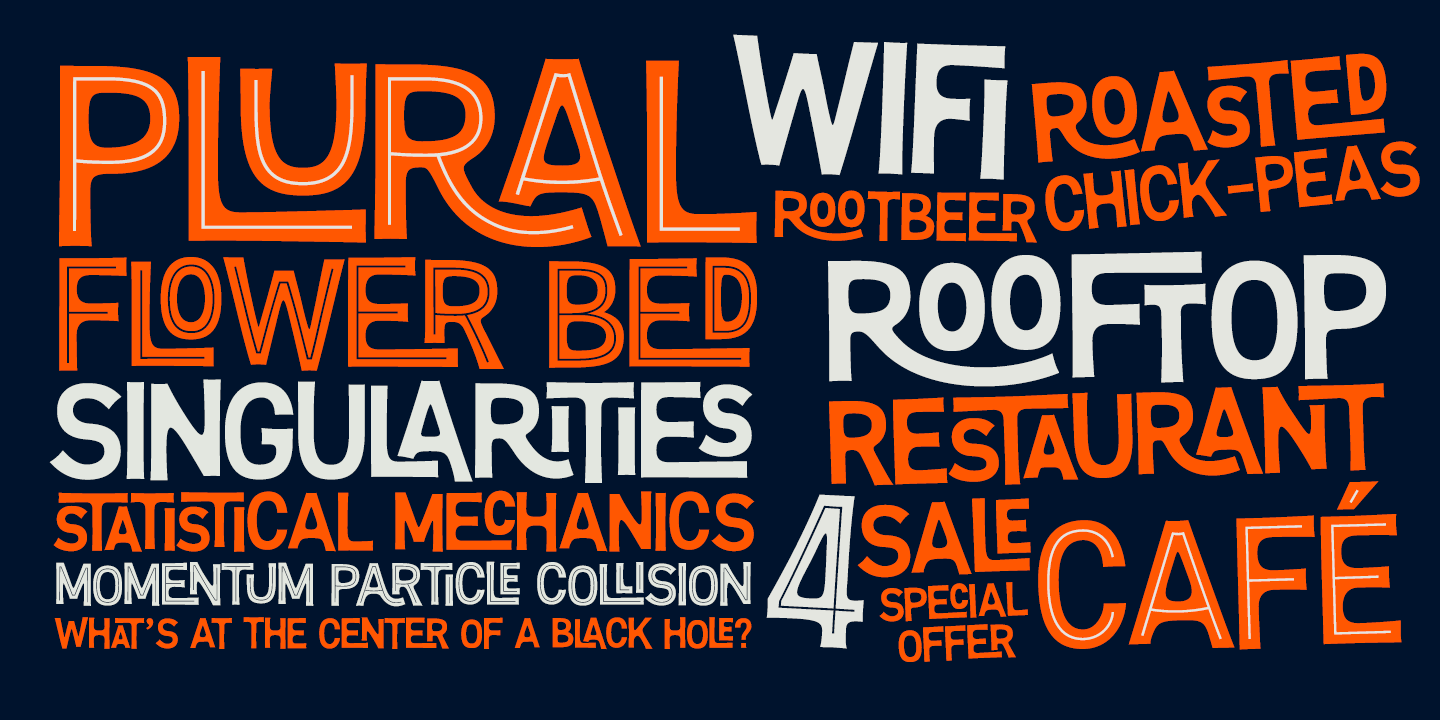
The Fruitos Font is an excellent choice for designs that demand a fresh, playful, and often organic aesthetic, perfect for conveying a sense of natural vibrancy and cheerful simplicity. Imagine it gracing the packaging of fresh juices or healthy snacks, adding a lively and inviting feel to children's food product branding, or bringing a distinctive, friendly vibe to farmers' market signage. It's also perfectly suited for captivating social media graphics related to nutrition and healthy living, unique branding for eco-friendly initiatives, and any project where you want to evoke a sense of wholesome goodness, natural charm, and approachability. With its characteristic forms and often rounded or whimsical touches, the Fruitos Font is ideal for projects that aim for visual appeal and a memorable, lighthearted impression.
What makes the Fruitos Font truly exciting is its ability to instantly project a sense of vitality and an endearing personality. It feels genuinely crafted with a playful spirit, instantly giving your designs a warm and inviting quality. This font often features subtle irregularities, rounded edges, or a bouncy baseline that adds character and warmth, setting it apart from more rigid typefaces. It's perfect for establishing a brand identity that feels fresh, imaginative, and genuinely unique, ensuring your visual communication is not just seen, but appreciated for its authentic and cheerful character. The Fruitos Font Free Download offers a fantastic opportunity to infuse your projects with this distinctive spirit.
The Fruitos Font family is typically designed to offer versatility while maintaining its signature fresh and playful style. While specific family members can vary, you can often expect to find:
Fruitos Regular
Fruitos Bold (for added emphasis and powerful headlines)
Fruitos Outline (for a unique display effect, adding depth)
Fruitos Shadow (for a playful three-dimensional appearance)
Fruitos Italic (for a slanted, dynamic look)
These variations provide flexibility for different design applications, allowing you to create engaging visual hierarchies and maintain a consistent, charming aesthetic across all your projects.